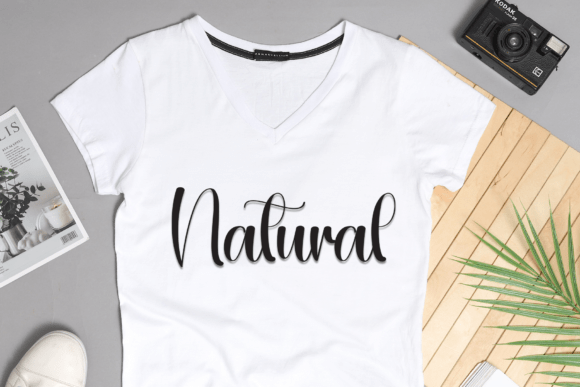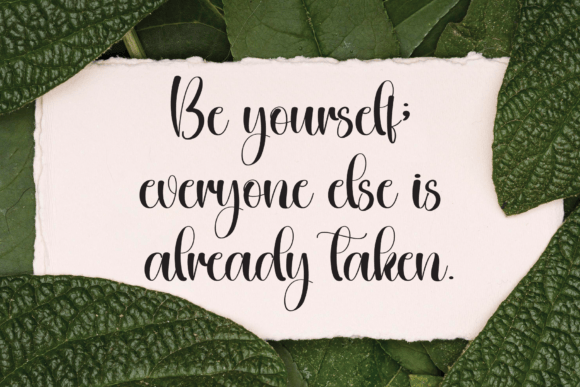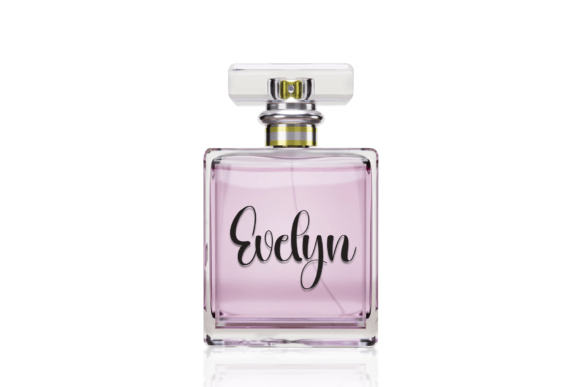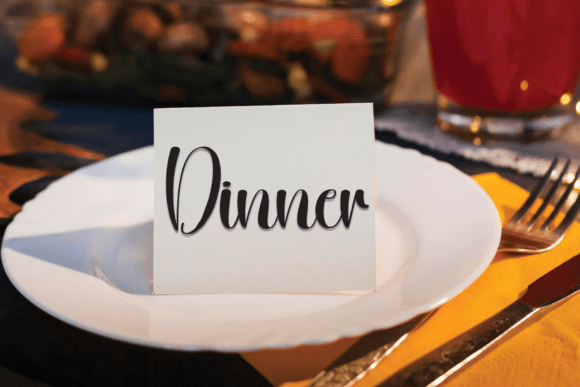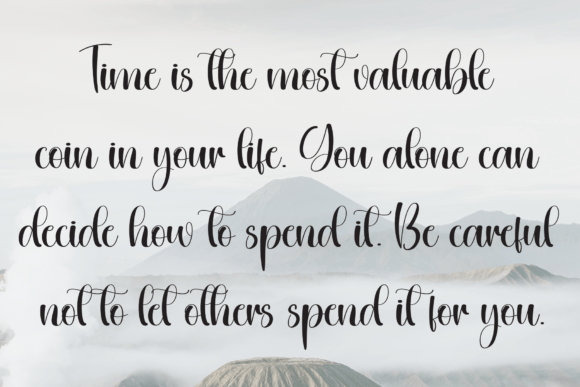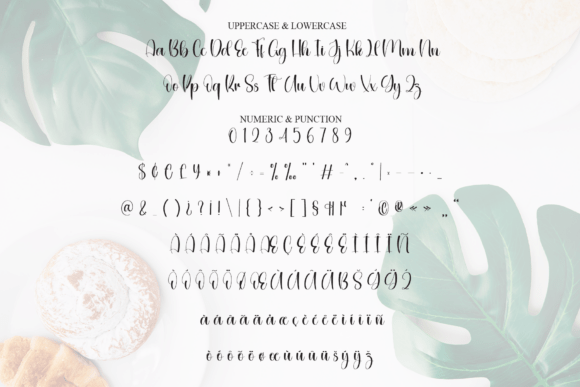
Introducing Breakday Font: The Perfect Blend of Modern Style and Readability
In the world of typography, a font can make or break a design. For designers and crafters, finding the right font that balances style with readability is a constant quest. Look no further than Breakday Font, a confident script calligraphy font that brings a touch of modern flair to any design project. In this article, we’ll dive into the features and benefits of Breakday Font, and explore how it can elevate your designs to the next level.
A Modern Script Calligraphy Font
Breakday Font is a script calligraphy font that exudes confidence and sophistication. Its modern style is perfect for designers looking to add a touch of elegance to their work. The font’s smooth lines and flowing curves create a sense of movement and fluidity, making it ideal for designs that require a sense of dynamism. Whether you’re working on a logo, product packaging, or editorial design, Breakday Font is sure to make a statement.
Balancing Style with Readability
One of the biggest challenges designers face is finding a font that balances style with readability. Breakday Font rises to the challenge, offering a perfect blend of both. The font’s carefully crafted letterforms ensure that text remains clear and legible, even at smaller sizes. This makes it perfect for use in a variety of applications, from body copy to headlines. Whether you’re designing a brochure, website, or social media graphics, Breakday Font has got you covered.
Ideal for Logos, Product Packaging, and Fashion Branding
Breakday Font is particularly well-suited for designs that require a touch of luxury and sophistication. Its modern script calligraphy style makes it perfect for:
- Logos: Create a lasting impression with a custom logo that showcases your brand’s personality and style.
- Product Packaging: Elevate your product packaging with a font that exudes quality and sophistication.
- Fashion Branding: Make a statement with a font that’s perfect for fashion brands looking to showcase their unique style and flair.
Editorial Design with Flair
Breakday Font is also ideal for editorial design projects that require a touch of elegance and sophistication. Whether you’re working on a magazine, newspaper, or blog, this font is sure to add a touch of class to your design. Use it for headlines, subheadings, or body copy to create a cohesive and stylish look that will engage your readers.
Key Features of Breakday Font
So what sets Breakday Font apart from other fonts? Here are some of its key features:
- Modern script calligraphy style: A unique and stylish font that’s perfect for designs that require a touch of elegance.
- Smooth readability: Carefully crafted letterforms ensure that text remains clear and legible, even at smaller sizes.
- Versatile: Perfect for use in a variety of applications, from logos to editorial design.